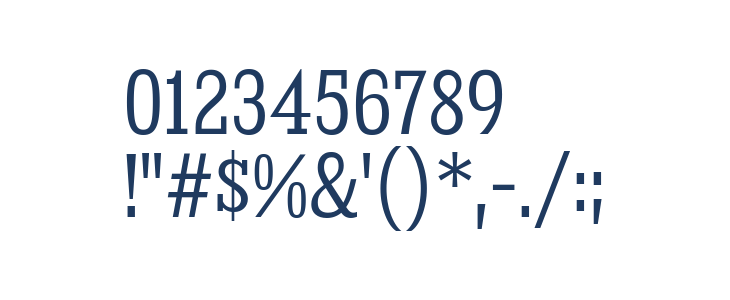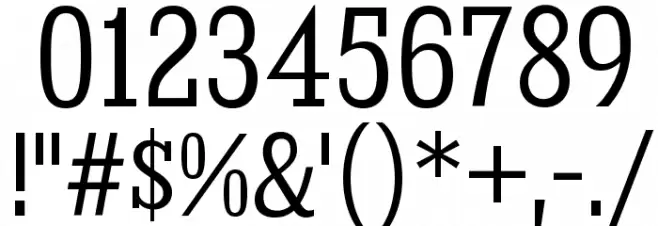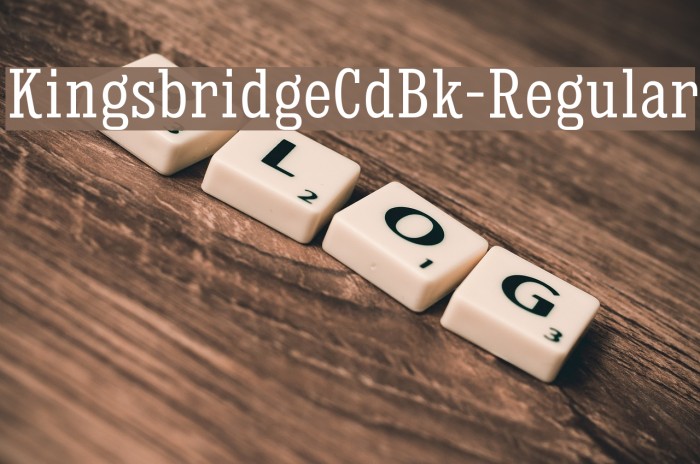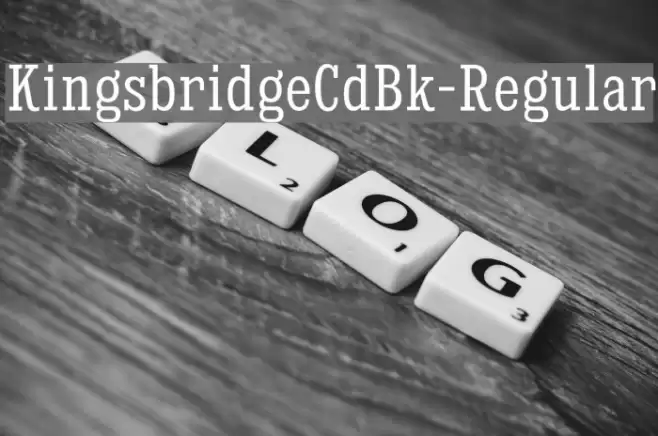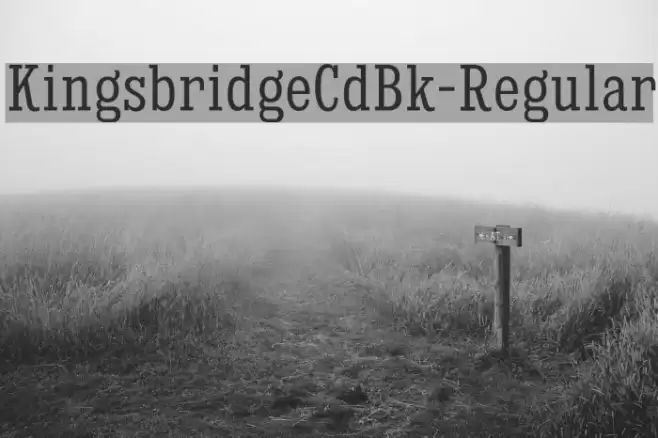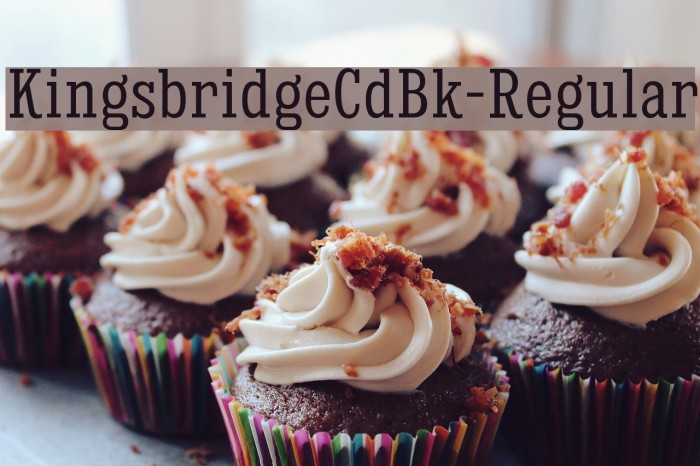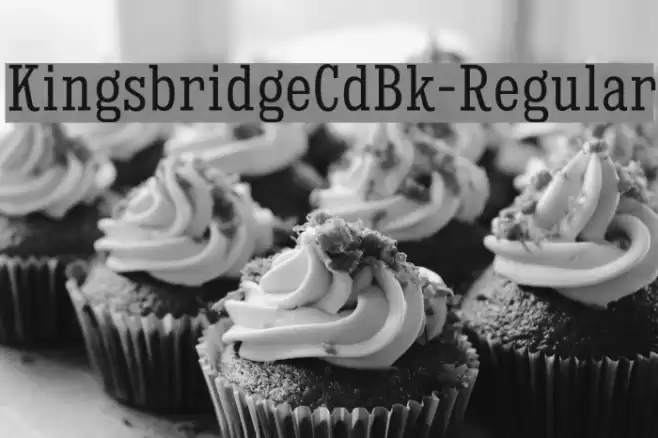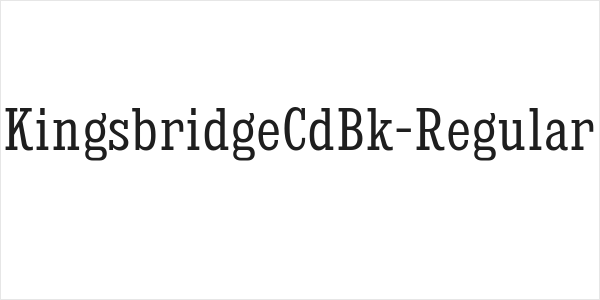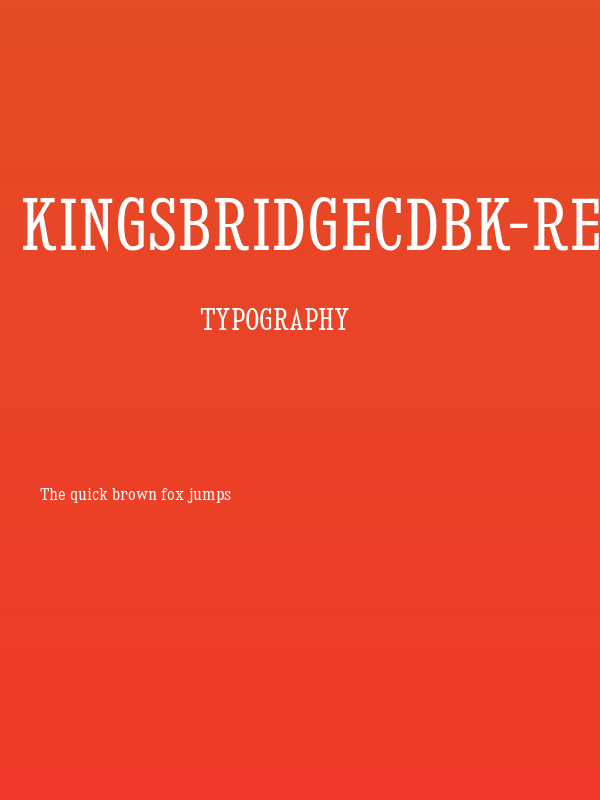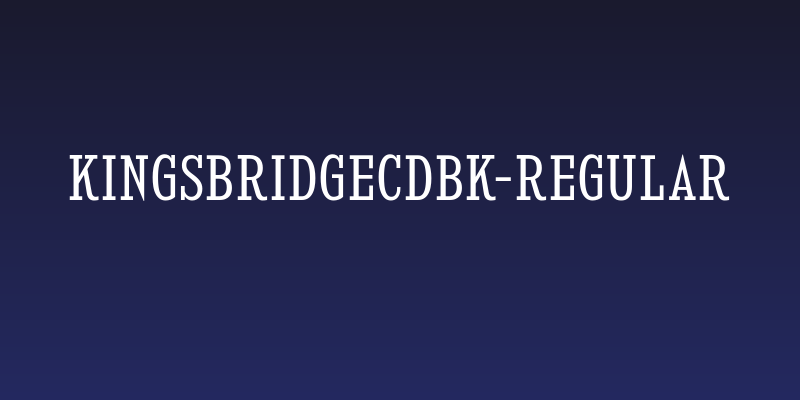
KingsbridgeCdBk-Regular Font
KingsbridgeCdBk-Regular Description
This font exhibits a classic serif style with a modern twist, characterized by its clean lines and balanced proportions. The uppercase letters are bold and commanding, while the lowercase letters maintain a consistent and readable form. The numerals are clear and distinct, making them suitable for both display and text settings. Special characters are well-defined, adding versatility to the font's usage. The overall design is elegant yet functional, making it suitable for various applications.
| Proposed Projects | Ideal for editorial design, book covers, formal invitations, and branding projects that require a touch of sophistication. |